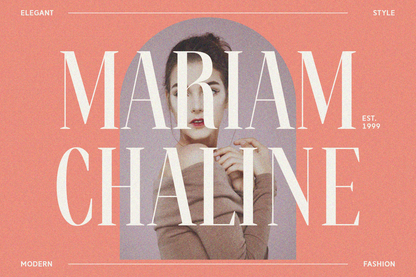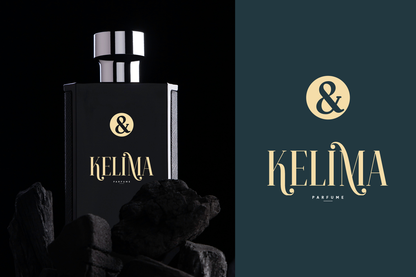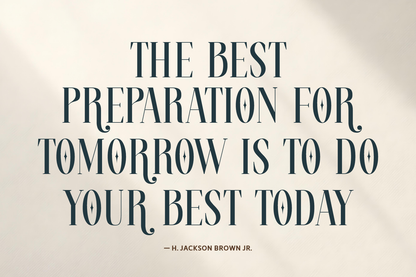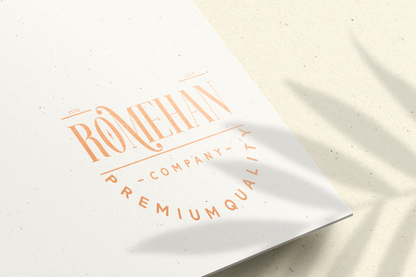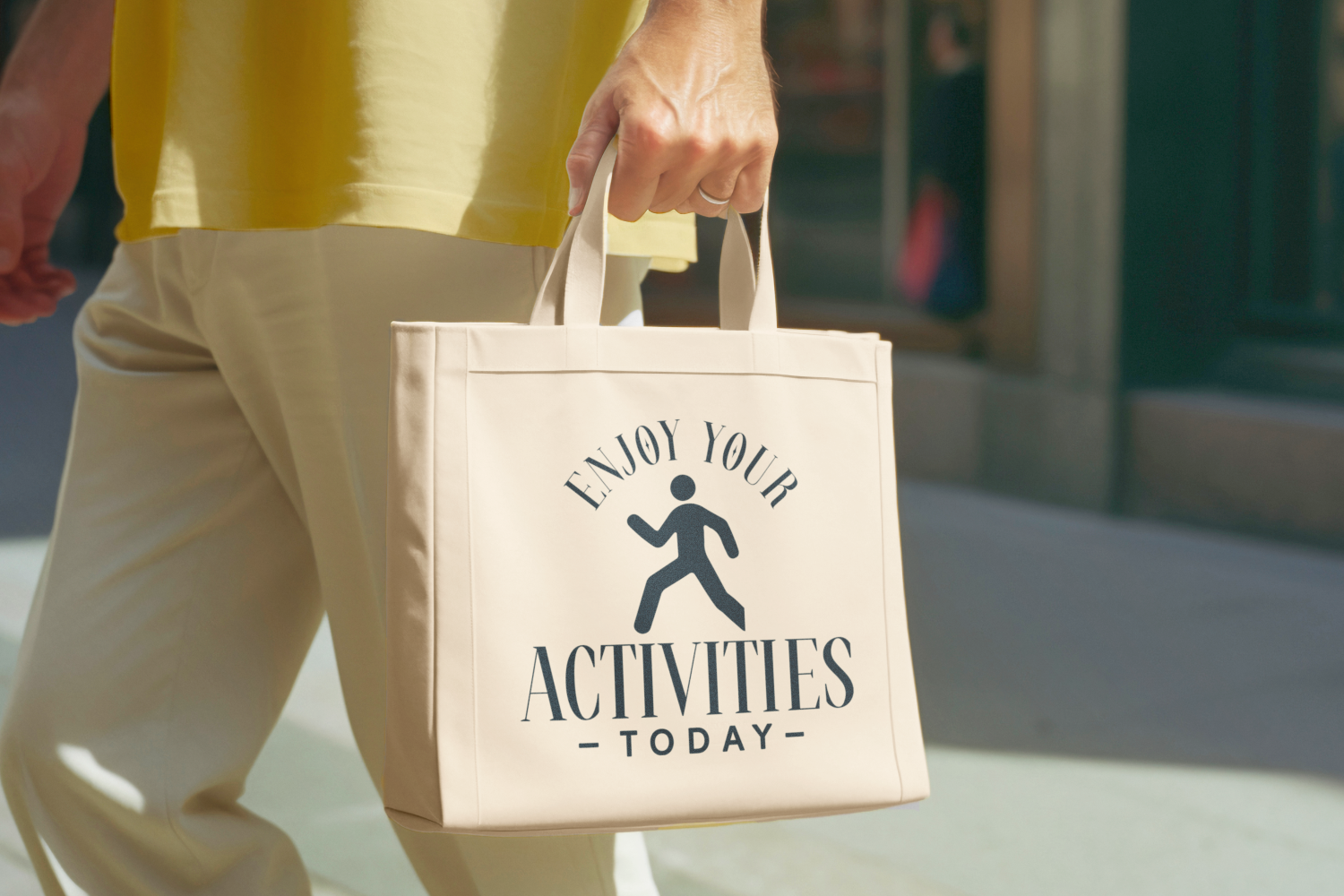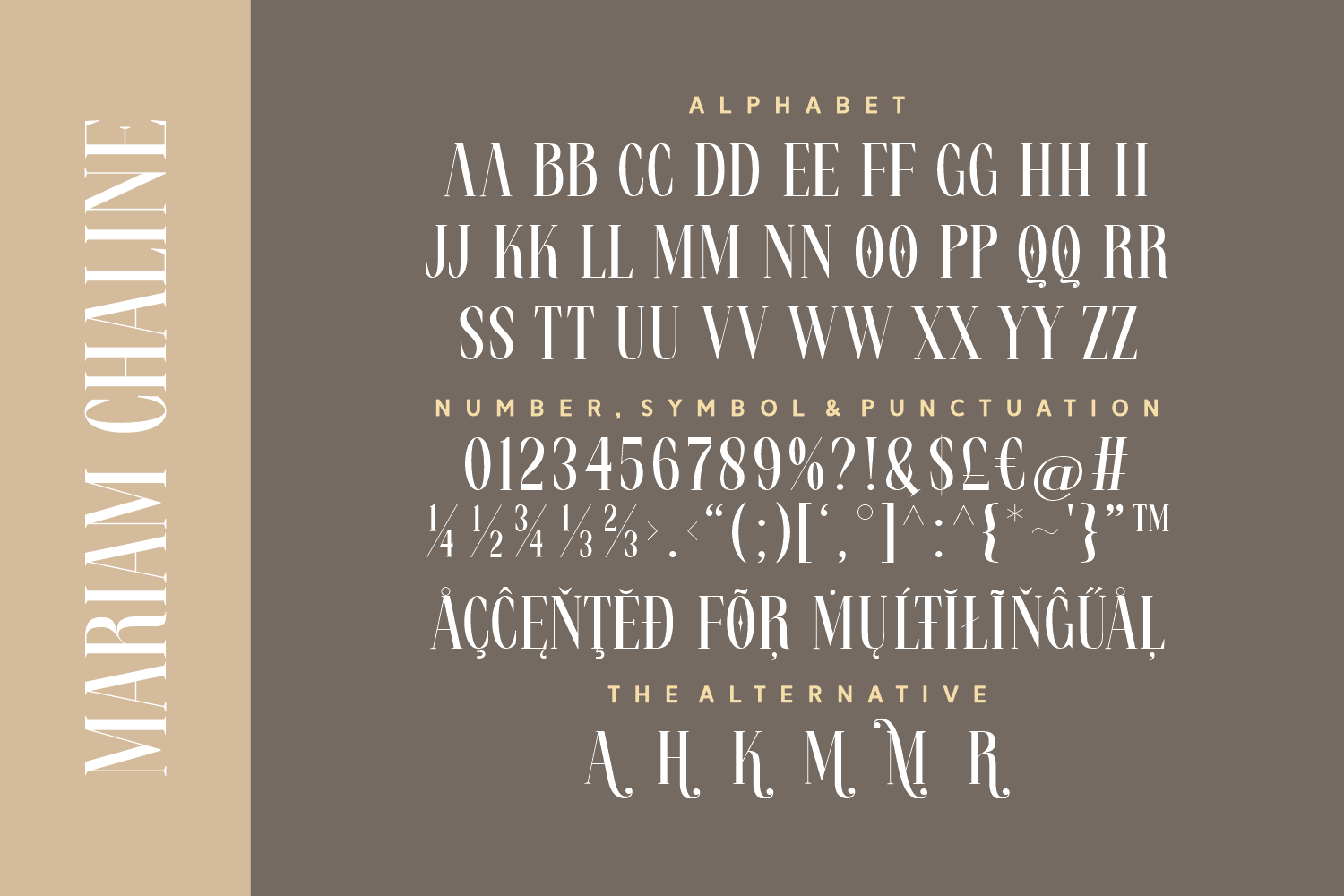
Mariam Chaline is a tall, luxurious serif font designed to turn heads. With its slender, high-contrast strokes and editorial elegance, it instantly elevates fashion brands, magazine layouts, and luxury packaging. This font speaks in a confident, refined tone—perfect for modern high-end storytelling.
Its elongated proportions add an element of drama while remaining readable and classy. Mariam Chaline is more than a font—it's a statement piece that enhances the visual voice of any premium project.